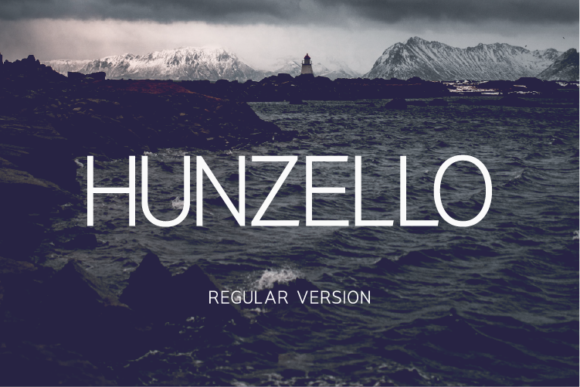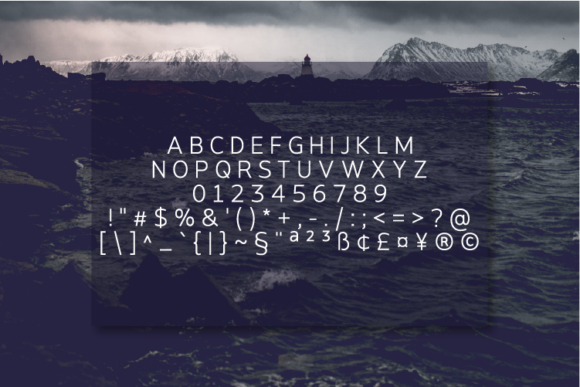
HomeSans Serif FontsHunzello Regular Font Sans Serif Fonts Hunzello Regular Font FacebookXPinterestWhatsApp Hunzello Regular Font 1 of 2 About Hunzello Regular Font Hunzello is a minimalist and modern sans serif font with an undeniably clean feel. With its neat and beautiful arrangement of letters, this typeface will look outstanding in both formal and non-formal designs. DOWNLOAD ON CREATIVE FABRICAThis font is sold and delivered by Creative Fabrica. Font Canyon may earn a commission if you buy through this link. People also explored Love Mine Font Reghitta Font Almost Font Bestie Font Feraldine Font Baby Face Font Anychild Font Amsterdam Font Green Tea and Toast Font 431 0 TagsHunzello Regular Font Previous articleHunzello Medium FontNext articleHunzello Light Font LEAVE A REPLY Cancel reply Comment: Please enter your comment! Name:* Please enter your name here Email:* You have entered an incorrect email address! Please enter your email address here Website: Save my name, email, and website in this browser for the next time I comment. Personal Use Free Aseline Personal Use Free Read more about this font Spring Personal Use Free Read more about this font Breakaway Personal Use Free Read more about this font Dream Orphans Personal Use Free Read more about this font BLOG How to Install and Use Fonts on Windows, macOS, and Web Projects How to Install and Use Fonts on Windows, macOS, and Web Projects Fonts are a crucial part of design and branding. Whether you’re designing a... Best Fonts for T-Shirt Design – Top 2025 Picks Transform Your Website: Elevate Your Typography with 7 Best Web Font Generators Free Fonts Risk: Why Free Fonts Can Be Dangerous for Designers